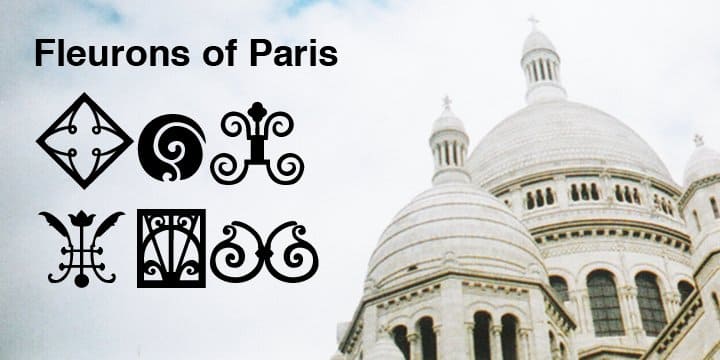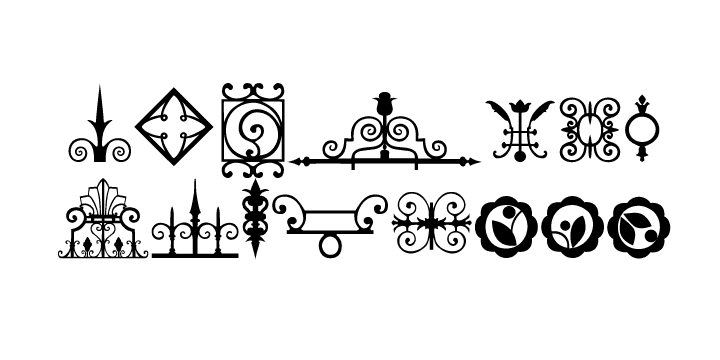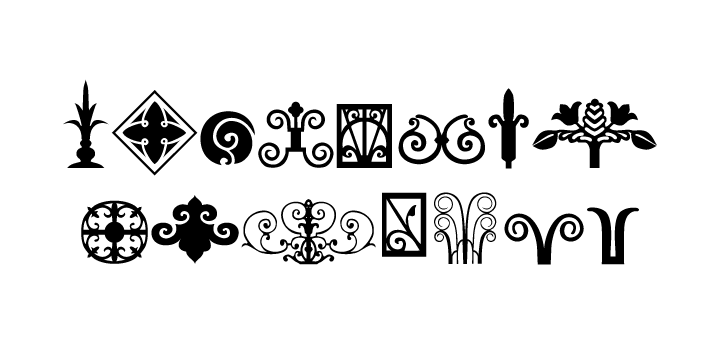
Fleurons of Paris (1 font)
The Fleurons of Paris were inspired by an iron gate, an iron railing, a Metro tile, a Metro stop, the Eiffel Tower, Notre Dame, a rainy afternoon, a glass of wine, an outdoor cafe and the list goes on and on.
Absorbing all things visual was immensely satisfying second only to coming home and reliving the trip tiny graphic by tiny graphic.